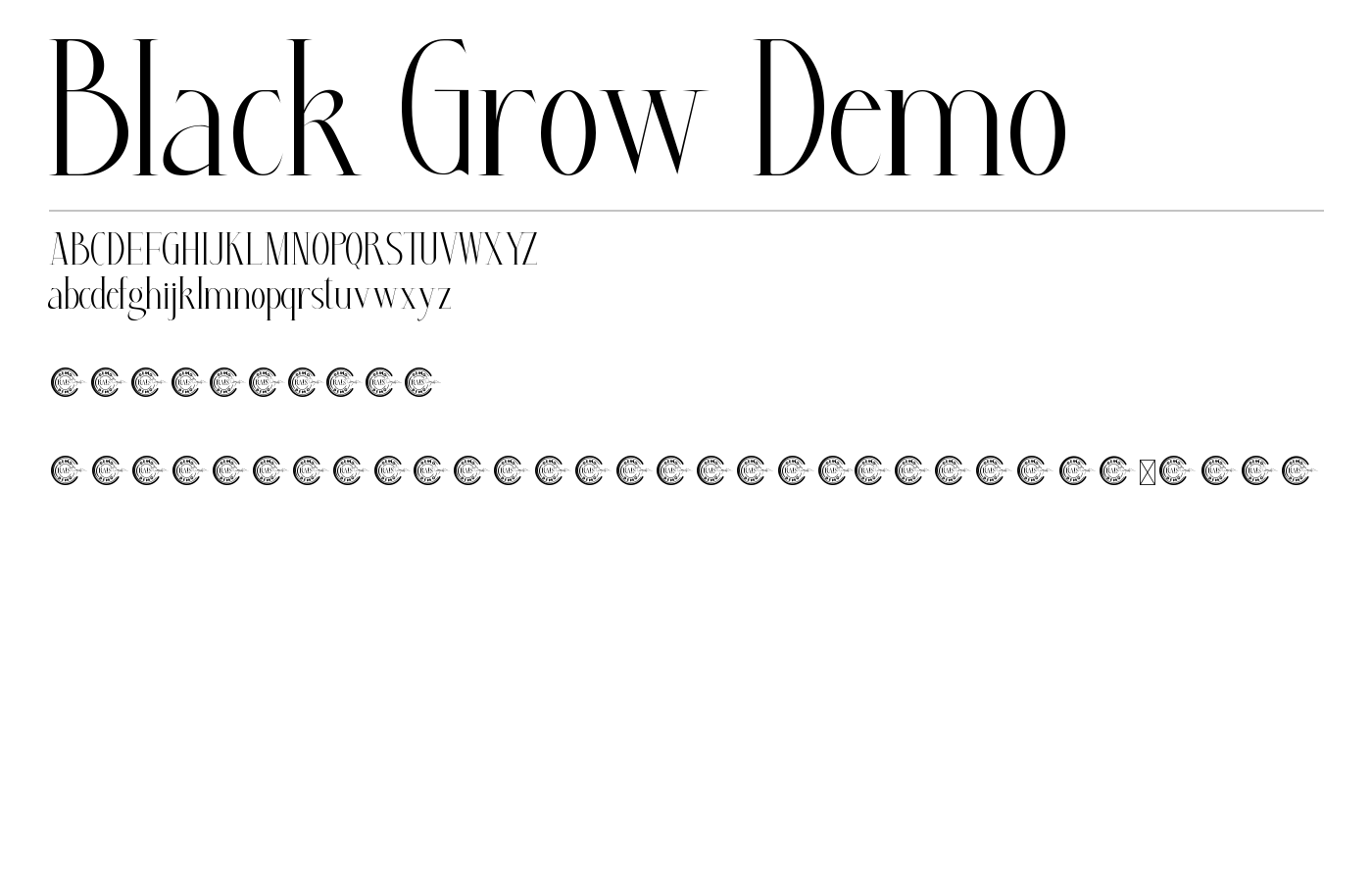
Black Grow Demo is a slender and elegant serif font with a modern vibe, characterized by tall, narrow letterforms and high contrast between thin and thick strokes. Its refined details and delicate serifs make it ideal for sophisticated headlines, luxury branding, and editorial uses where a striking, stylish presence is desired. This font is perfect for designs that aim to convey elegance and contemporary class.
Black Grow Demo Font
About Black Grow Demo Font
| Font family | Black Grow Demo Font |
| Designer | Widiyanti |